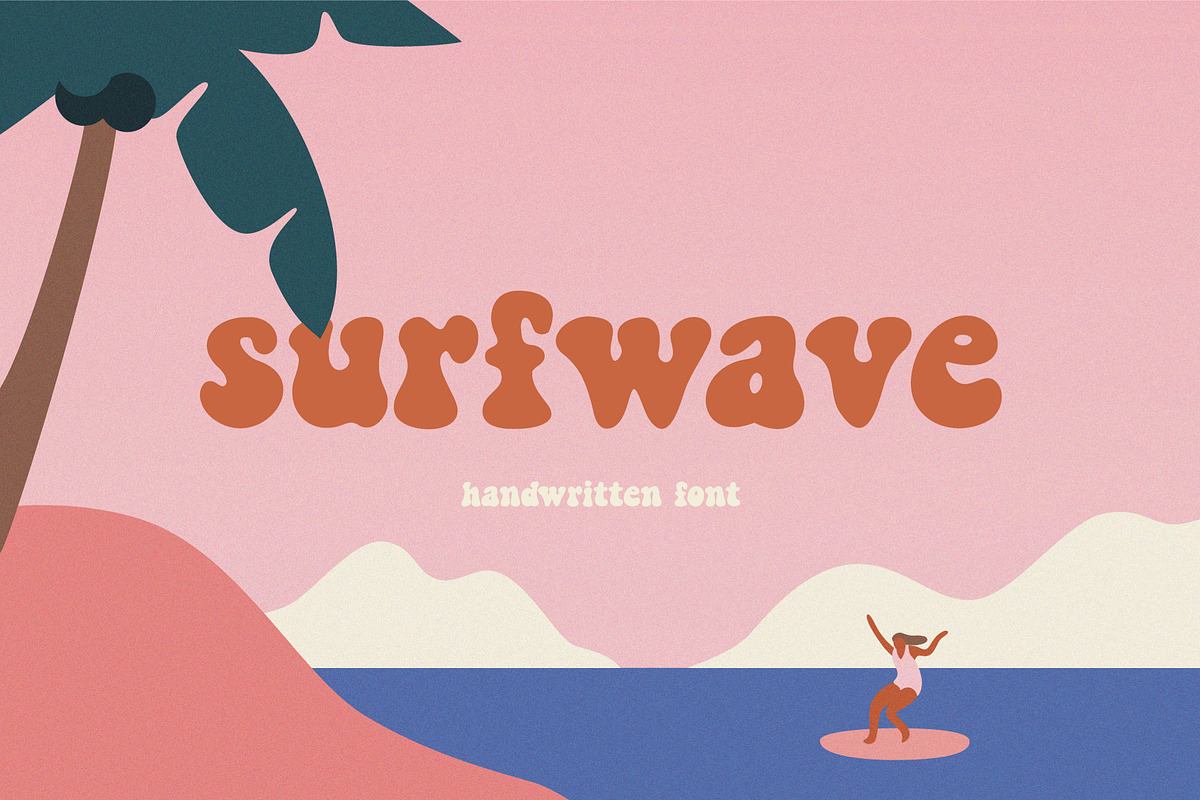
Surfwave | Handwritten Font Free Download is a laid-back, beachy typeface that captures the relaxed spirit of handwritten notes and coastal vibes. Please note: you must purchase this font for commercial use, but you can test it through a free download. With its casual strokes, playful rhythm, and natural flow, Surfwave is perfect for summer-themed designs, surf apparel, travel blogs, postcards, lifestyle branding, and social media graphics.
This font brings an easygoing charm to any project—ideal for creatives looking to evoke sunshine, waves, and good energy. Whether you're designing for a tropical brand or crafting fun quote graphics, Surfwave | Handwritten Font Free Download delivers personality and freedom in every letter. Fully compatible with Adobe Illustrator, Photoshop, Canva, and more. Download it today for personal use and ride the creative wave with the relaxed style of Surfwave.